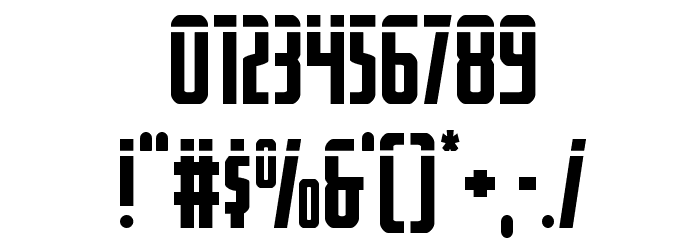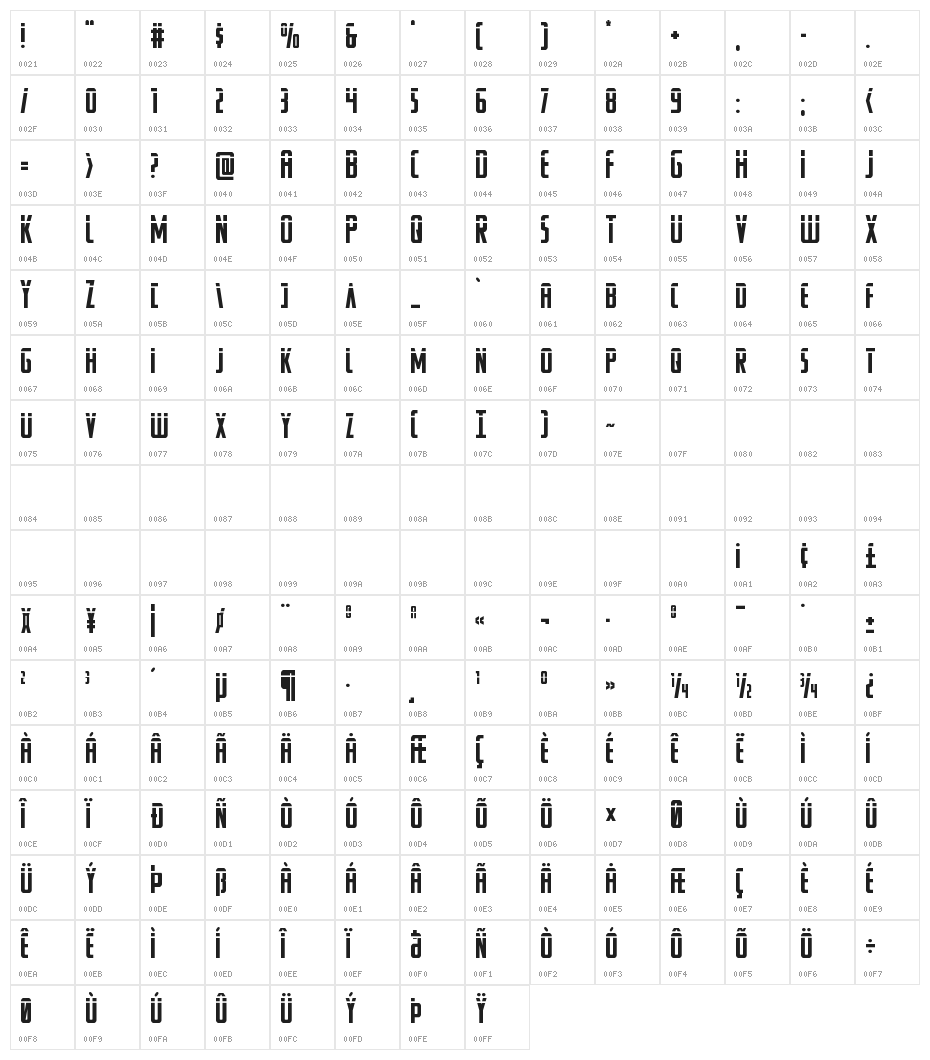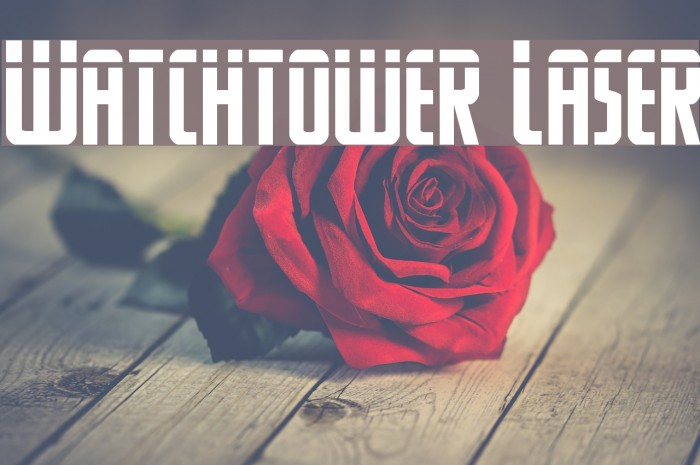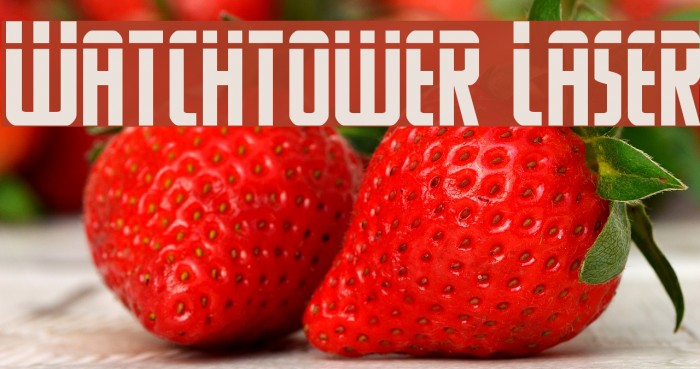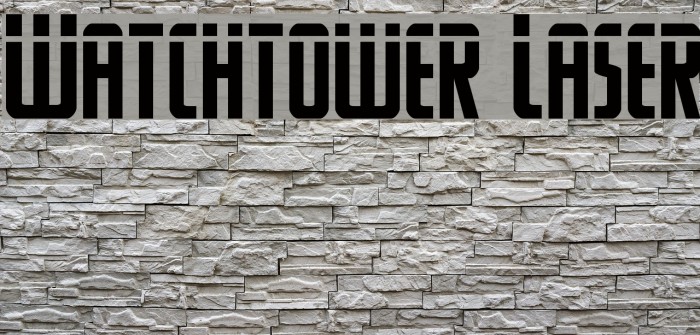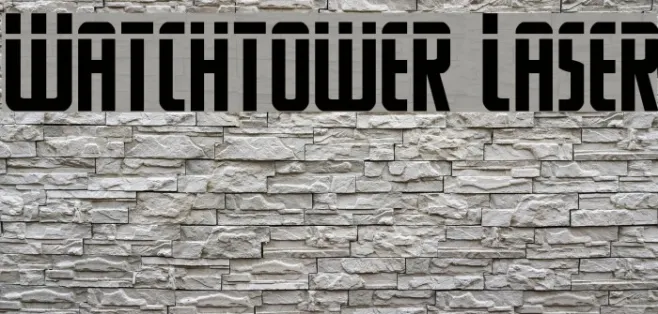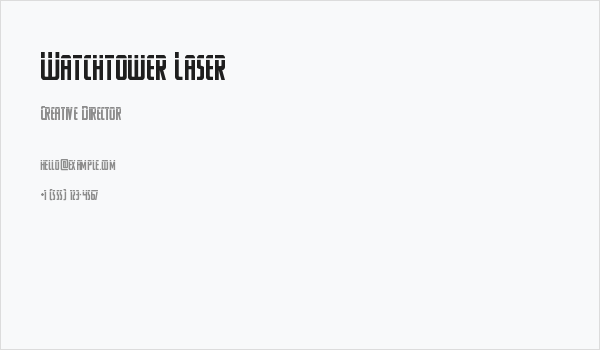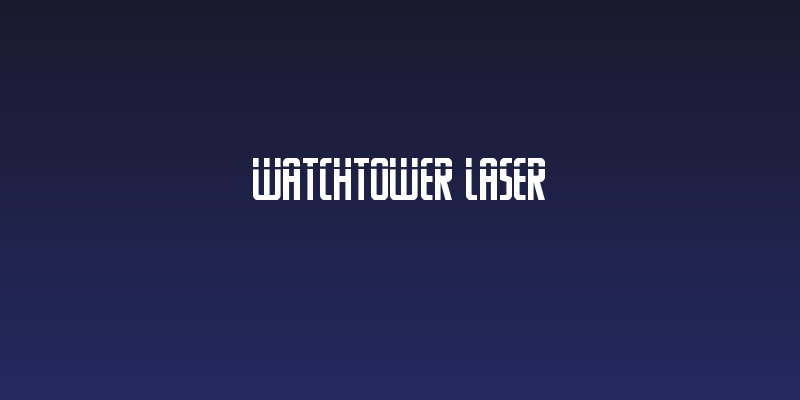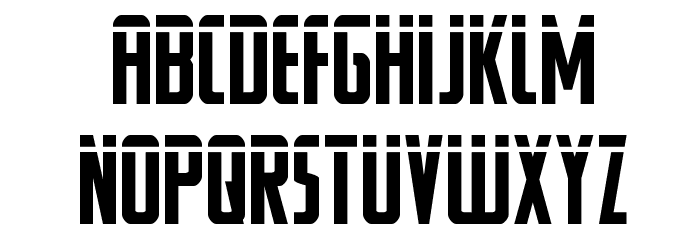
Watchtower Laser Font
Watchtower Laser Description
This font features a bold, futuristic design with a strong geometric structure. The characters are tall and narrow, giving a condensed appearance that emphasizes verticality. The sharp angles and straight lines create a sense of precision and modernity, reminiscent of digital or technological themes. The uppercase letters are particularly striking, with consistent height and width, while the lowercase letters maintain the same stylistic elements. Numbers and special characters are designed to match the overall aesthetic, ensuring uniformity across all glyphs. The font's unique style makes it suitable for projects that require a modern and edgy look.